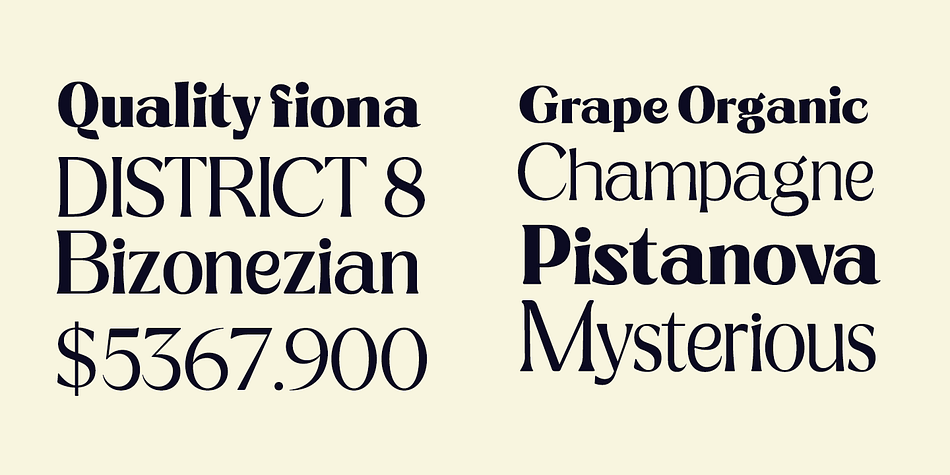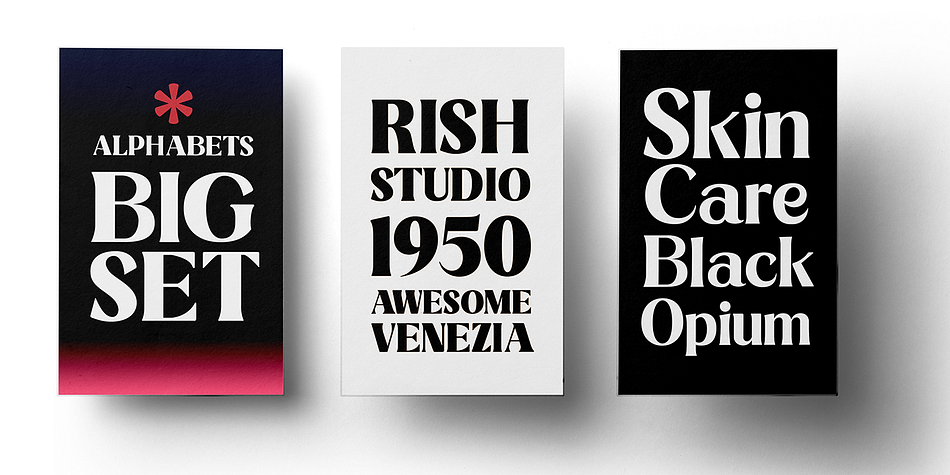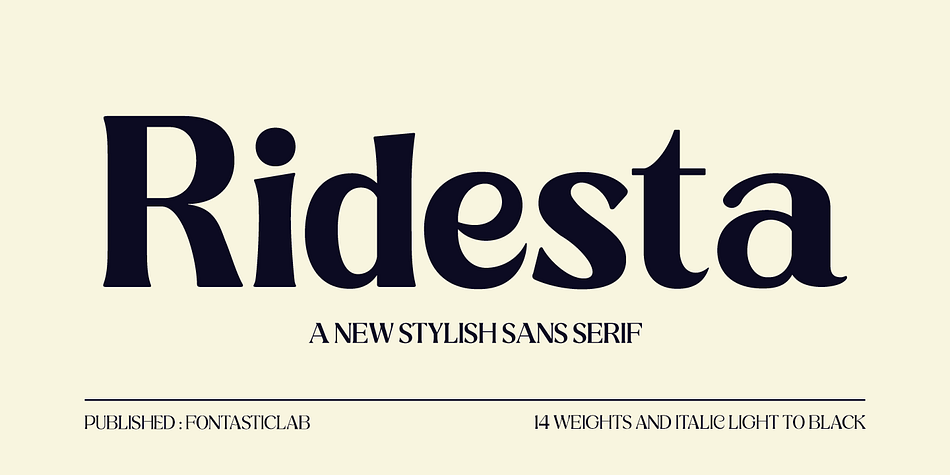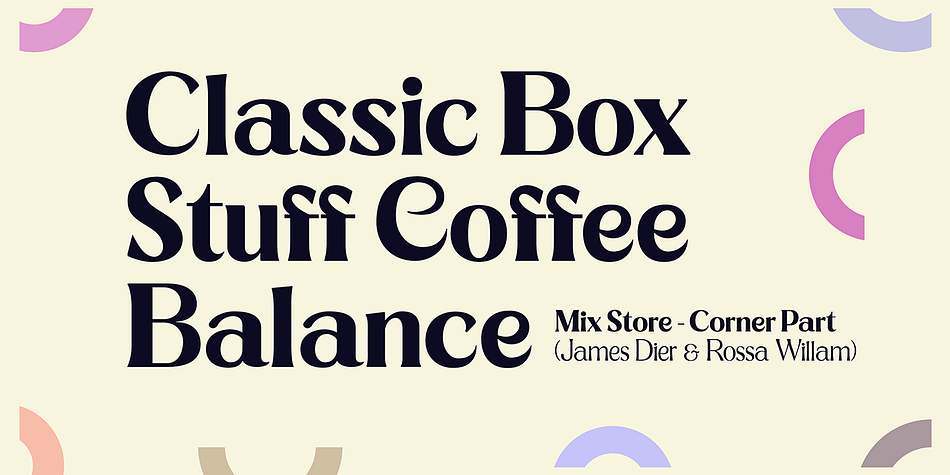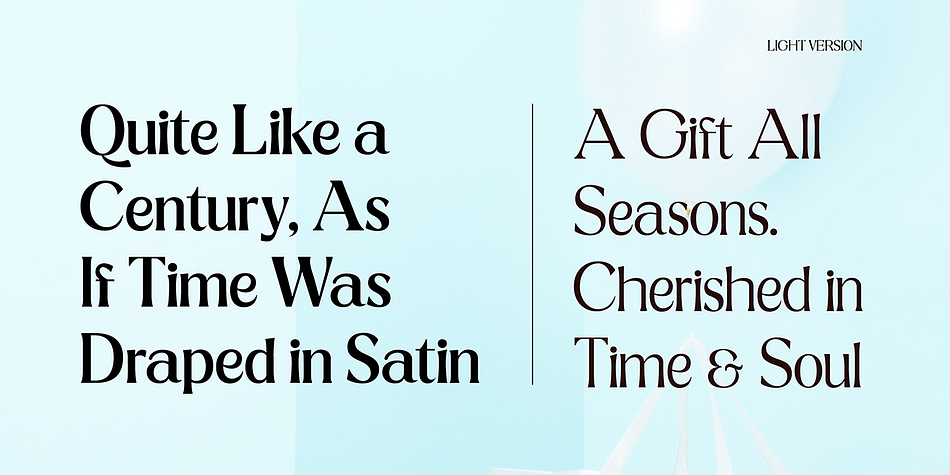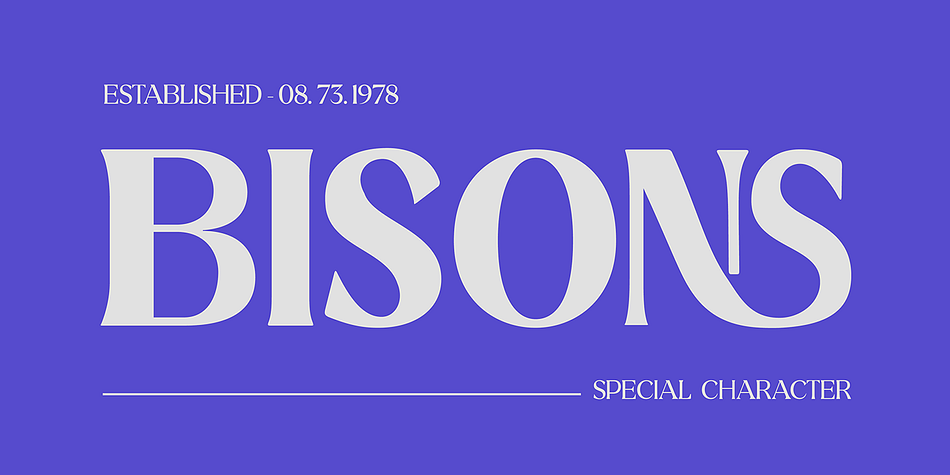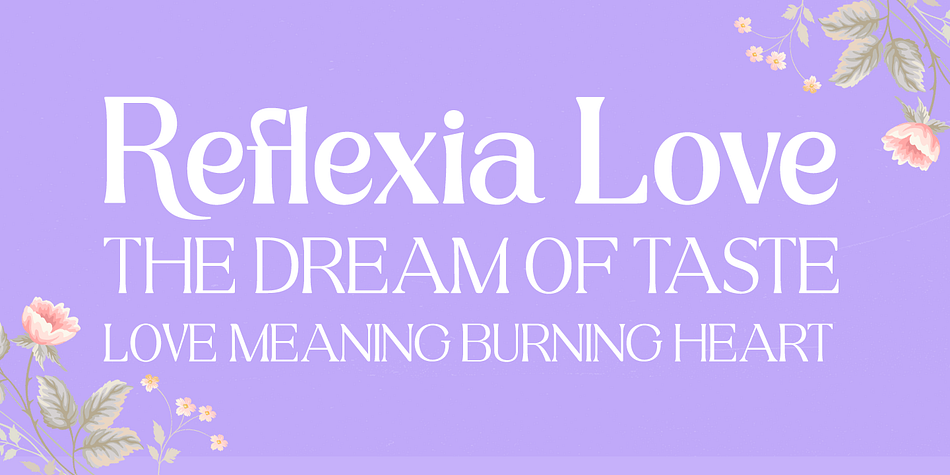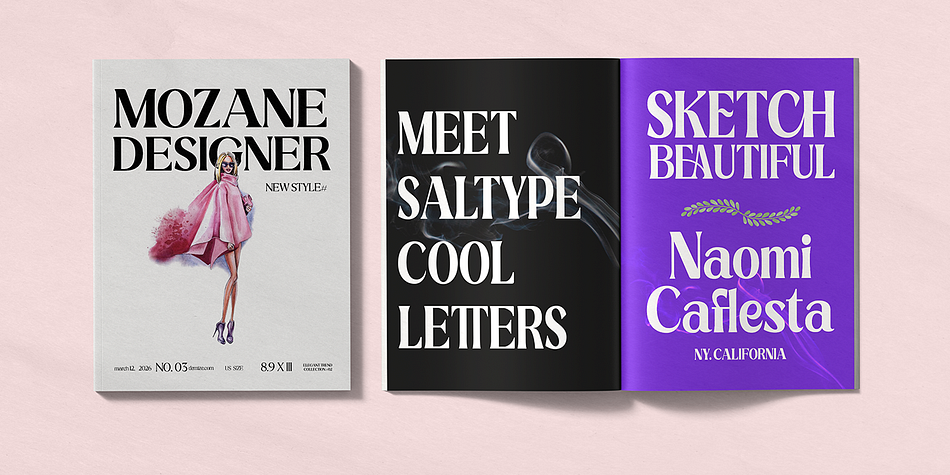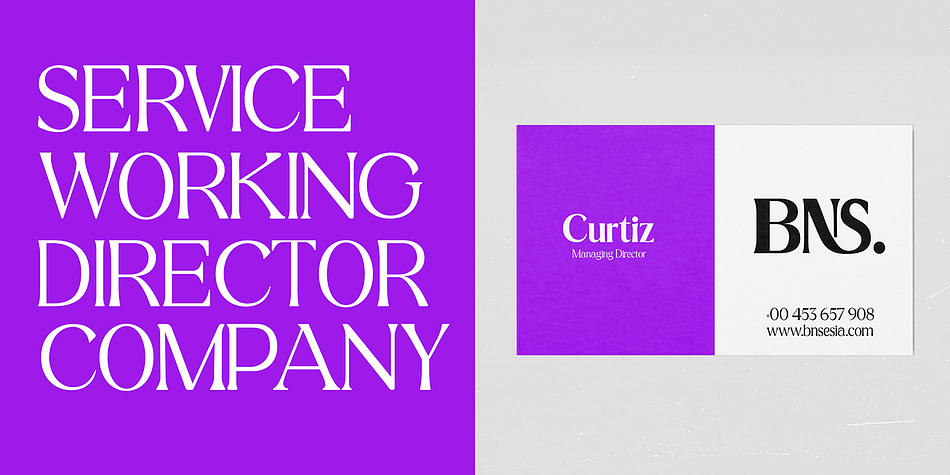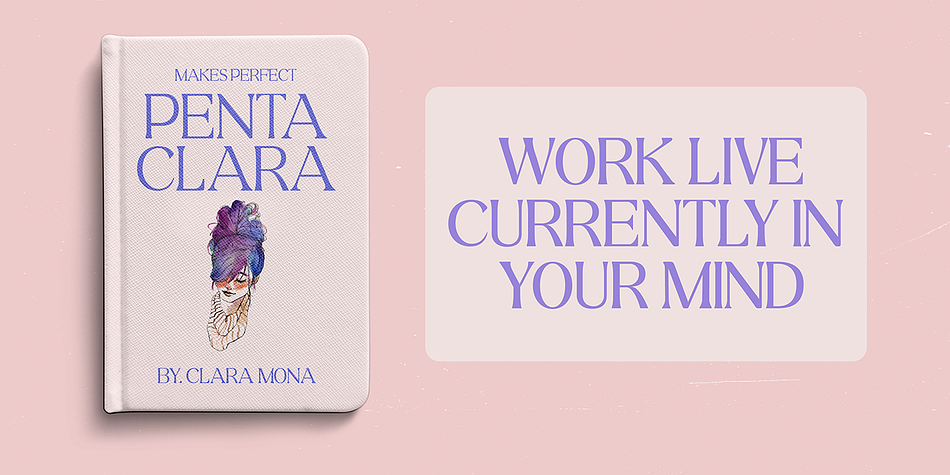
Ridesta
Ridesta is a sans serif font family. This typeface has fourteen styles and was published by Fontasticlab.
Ridesta is a skillful and authentic sans serif font family. Featuring matched weights and italics, and fourteen complete letterforms, each offering something different with its own dynamic weight and all crafted to work together harmoniously.
With a minimal design, low contrast, large x-height, and thin black weight (with additional ligature letters), Ridesta is perfect as a primary text and display font for branding, advertising, packaging, headlines, magazines, websites, logo designs, and more.